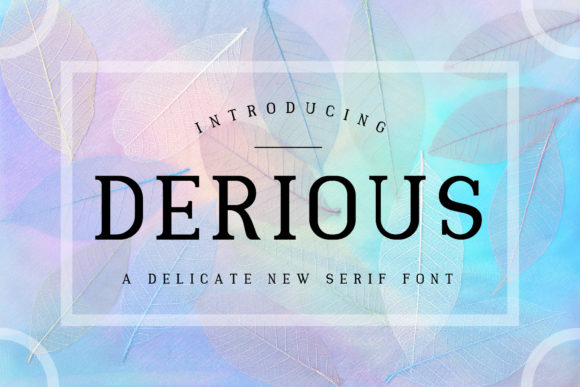
Unleash your creative spirit with Derious Font, the epitome of elegance and sophistication in the world of typography. This modern and assertive serif font, brought to life by the talented designers at CraftlabSVG, is a visual masterpiece that will elevate your designs to new heights.
With its captivating curves and sharp edges, Derious Font exudes a timeless charm that will leave a lasting impression on your audience. Its beauty lies in its versatility, seamlessly adapting to a wide range of design projects, from heartfelt quotes and stylish shirts to personalized mugs and greeting cards.
Whether you're a seasoned graphic designer, a Cricut enthusiast, or simply someone with a passion for creating unique and eye-catching designs, Derious Font is your perfect companion. Its meticulously crafted characters will add a touch of class and sophistication to your projects, turning them into true works of art.
Step into the world of Derious Font and embark on a creative journey like no other. Let your imagination soar as you explore its endless possibilities, creating designs that captivate, inspire, and leave an unforgettable mark.